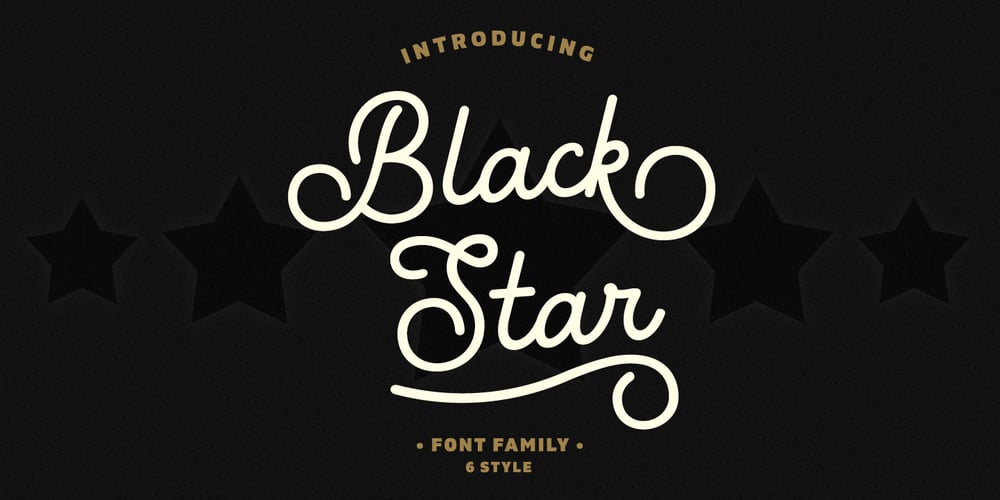
Black Star Font Family was designed by Pavel Larin and published by Larin Type Co. Black Star contains 6 styles and family package options. Black Star is a new monoline font family. This font is ideal for branding and decorate your any project, are perfect for wedding invitation or your blog. Also with their help, you can create a logo or beautiful frame for your home. Or just use for your small business, book covers, stationery, marketing, magazines and more. Also for you, I have prepared many alternates so that you can make your project unique.